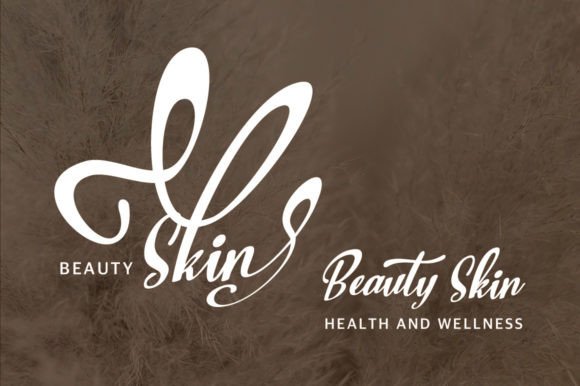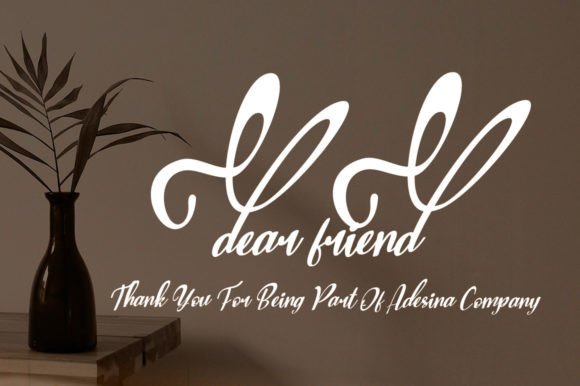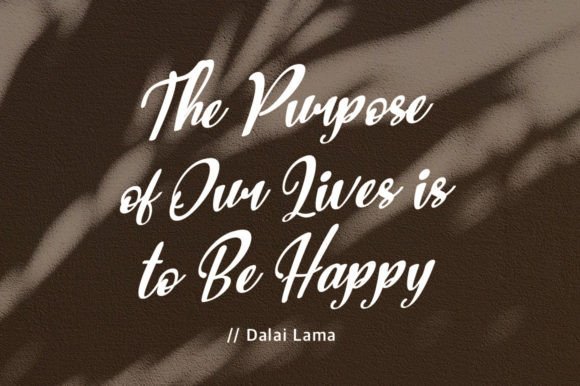
The Adesina Font: A Lovely Script Font for Creative Projects
Have you ever been in the middle of a design project, and suddenly, you’re stuck on finding the perfect font? I recall a recent experience where I was working on a craft project, and I needed a font that would add a touch of elegance and sophistication. That’s when I stumbled upon the Adesina Script font. With its varying baseline, smooth, modern, and elegant touch, I knew I had found the perfect fit.
A Personal Review of Adesina Font
What I Love About Adesina Font
• ✨ Elegant and sophisticated design with a modern touch
• ✅ Features a varying baseline for a unique look
• 💫 Smooth and flowing script that’s perfect for creative projects
• 🎨 Highly versatile and can be used for a wide range of applications
While Adesina Font is an excellent choice for many projects, there are a few things to keep in mind:
• ⚠️ May not be suitable for very small font sizes due to its script nature
• 🤔 Limited use of uppercase letters, which may require creative workarounds
The Designer Inspiration Behind Adesina Font
The Adesina Font was designed with the intention of creating a beautiful, elegant script font that would add a touch of sophistication to any project. The designer aimed to create a font that would be highly versatile and suitable for a wide range of applications, from crafts to advertisements. While the real story behind the font’s creation may be unknown, it’s clear that the designer was successful in creating a stunning font that has captured the hearts of many designers and crafters.
Q: What is the best way to use Adesina Font in my designs?
A: Adesina Font is highly versatile and can be used in a variety of applications, including crafts, invitations, event posters, and advertisements. Experiment with different OpenType features and glyphs to add more flair to your designs.
Q: Is Adesina Font suitable for body text?
A: While Adesina Font is beautiful and elegant, it may not be the best choice for body text due to its script nature. It’s better suited for headings, titles, and other display text.